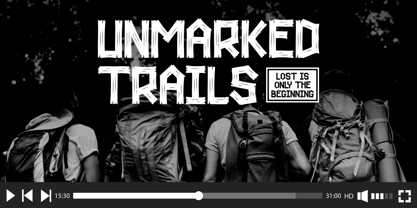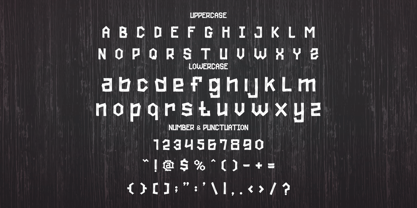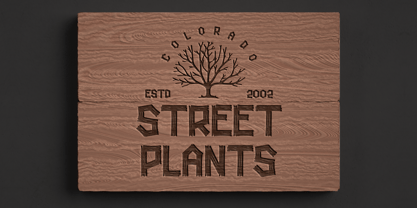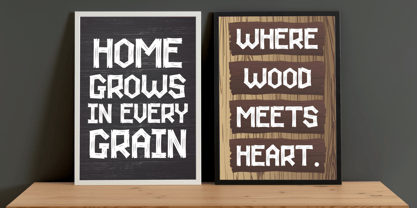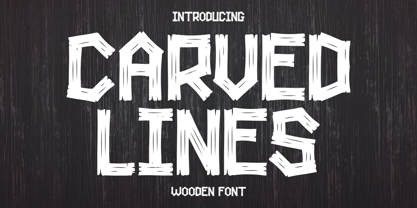
Carved Lines
by Shanaf
The Carved Lines Font Family was designed by Yesie Erma Yunita and published by Shanaf. Carved Lines contains 1 styles. More about this family
Carved Lines Wooden Font is a display typeface inspired by traditional wood carving and manual craftsmanship. The letterforms are tall and bold, with uneven strokes that mimic carved cuts on solid material. Each character shows sharp angles, rough edges, and subtle inconsistencies that give the font a handmade feel. The texture feels dry and raw, similar to marks left by chisels and carving tools. Stroke weight stays firm and solid, making the font readable at large sizes while keeping its rugged personality. This font leans toward a rustic, crafted, and vintage style rather than modern or playful aesthetics. It carries a strong artisan tone that reflects woodworking culture, manual labor, and honest materials. The font works well for logos and branding that want to communicate authenticity and hand-built values. It fits businesses related to carpentry, woodworking studios, furniture makers, craft workshops, camping brands, outdoor services, and local shops. The strong uppercase structure helps logos stand out on signage, packaging titles, and brand marks. The lowercase set keeps the same carved character, making it flexible for short copy, headlines, and brand statements. This font performs best as a headline and branding typeface where character matters more than neutrality. The carved structure creates impact for posters, packaging titles, shop signs, book covers, and magazine headlines. It also suits quotes, movie titles, sticker text, greeting cards, invitations, and promotional layouts that need a handcrafted tone. Numbers and punctuation follow the same carved logic, allowing consistent use across branding systems. The font feels grounded, bold, and expressive without relying on decorative extras. Carved Lines Wooden Font supports brands that value craftsmanship, tradition, and manual skills. It strengthens visual identity for cafés with rustic concepts, woodworking businesses, adventure services, eco-focused products, and handmade goods branding. The font communicates durability and honesty, helping logos and brand names feel memorable and confident. With its carved personality, this typeface brings character to any project that needs a strong, crafted voice.
Carved Lines